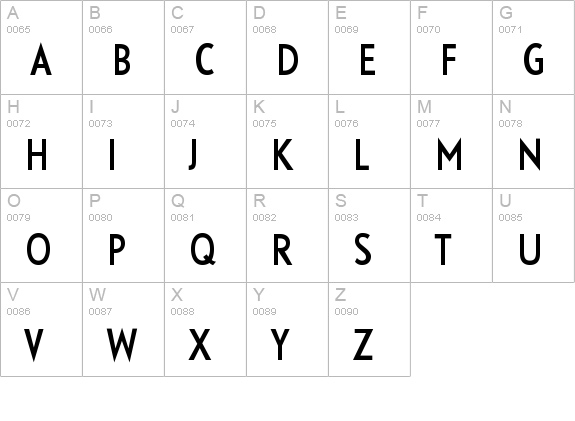
DTLNobelT-Condensed is a distinctive, condensed-width variant in the DTLNobelT typeface family \xE2\x80\x94 well suited to design and typography projects.
DTLNobelT-Condensed font is a sleek and modern typeface that exudes sophistication and style. With its condensed design, it is perfect for conveying a sense of elegance and professionalism in various design projects. The clean lines and sharp angles of this font make it highly versatile and suitable for a wide range of applications. What sets DTLNobelT-Condensed font apart is that it is available for free download at FontsMarket.com. This means that you can easily access and use this high-quality font in your projects without any cost. Whether you are working on branding, advertising, web design, or any other creative endeavor, DTLNobelT-Condensed font is sure to make a bold statement and elevate your work to the next level. Don't miss out on the opportunity to enhance your designs with the elegance and sophistication of DTLNobelT-Condensed font. Download it for free today at FontsMarket.com and start creating stunning visuals that captivate and inspire.